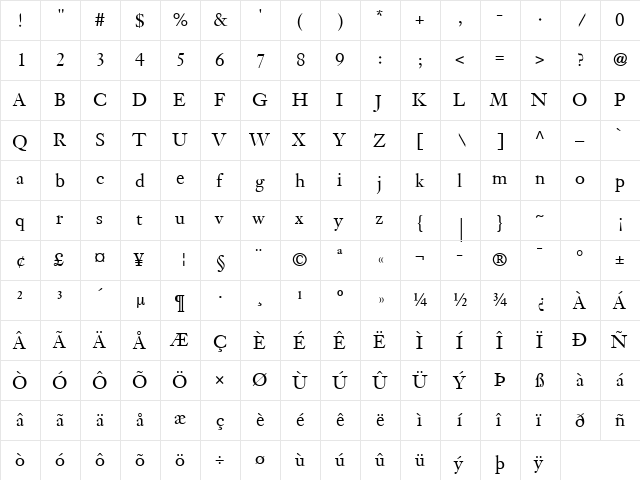
Hassan LT Light
| Foundry | Linotype GmbH |
| Designer | Hassan Sobhi Mourad |
Design Context for Hassan LT Typeface
Hassan LT offers clean, dependable letterforms without strong stylistic allegiance, making it a practical choice for designers who need flexibility. Its slender proportions lend an understated elegance to any composition.